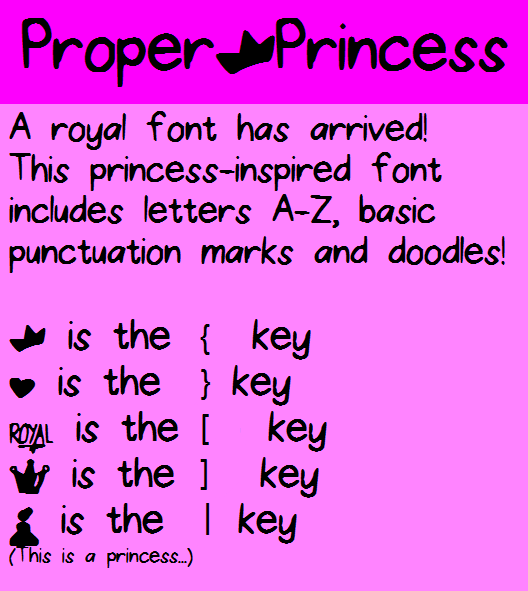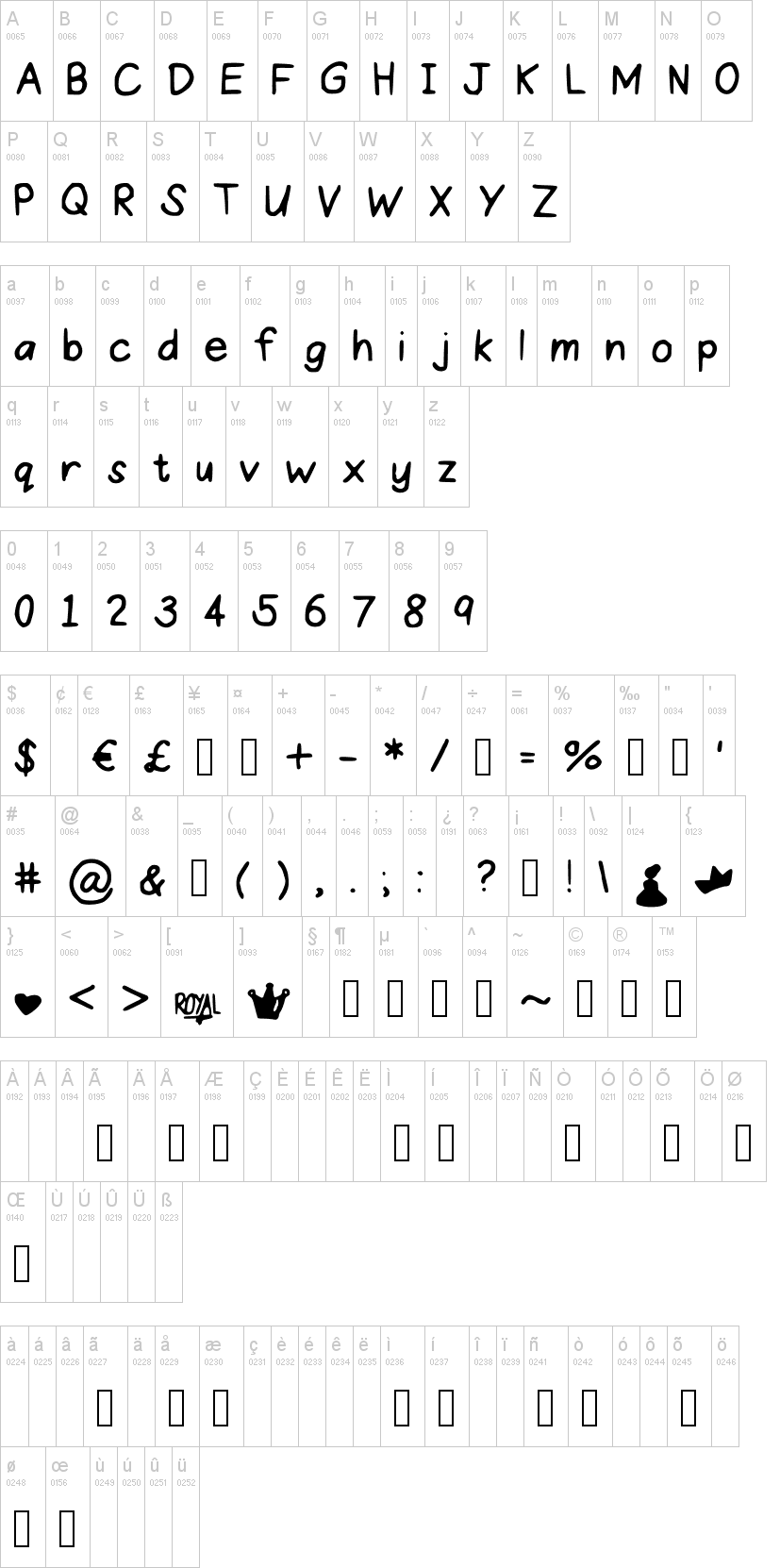
Note of the authorA royal font has arrived! Proper Princess includes letters A-Z and basic punctuation marks. Don't forget the 4 super cute princess-themed doodles! A truly royal font for the royalties...